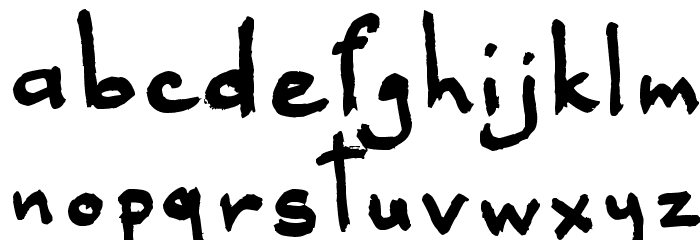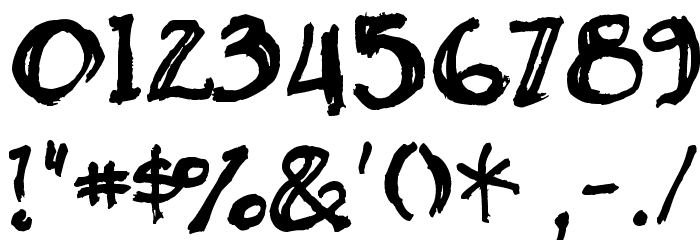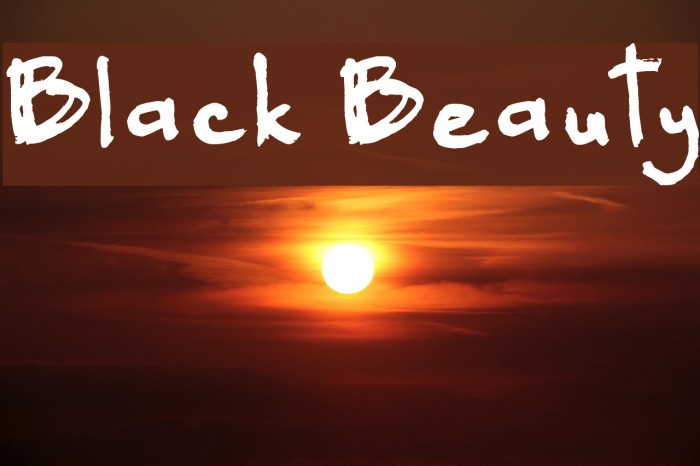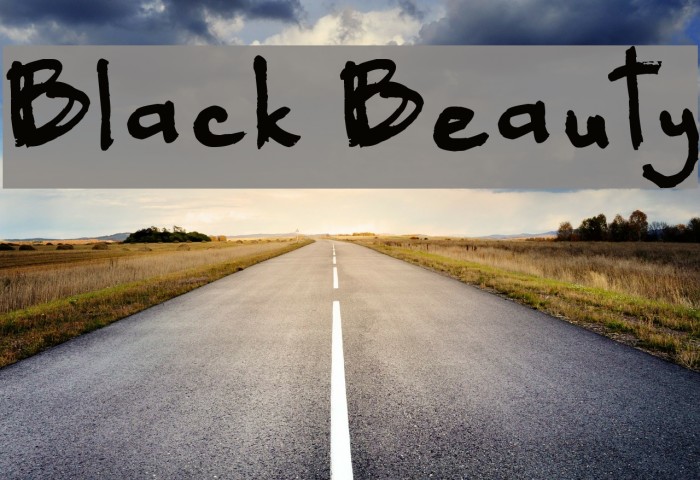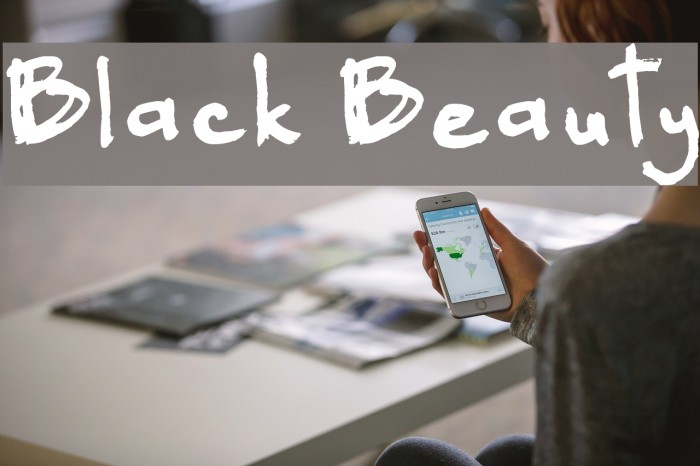
Black Beauty Font
This font features a bold, expressive style with a hand-drawn appearance. The characters are irregular and dynamic, giving a sense of movement and energy. The strokes are thick and uneven, resembling brush strokes, which adds a raw and artistic feel. The uppercase and lowercase letters maintain a consistent style, with a playful yet edgy look. The numbers and special characters follow the same aesthetic, ensuring a cohesive appearance across all glyphs. This font is ideal for projects that require a strong visual impact and a creative touch.
A bold, hand-drawn font with dynamic, brush-like strokes.
- Proposed Projects: Perfect for posters, album covers, branding, and creative design projects that need an artistic flair.